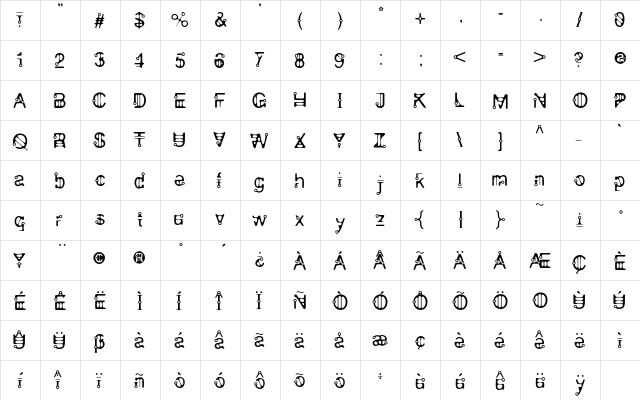
Generator Regular
Design Context for Generator Typeface
Generator is a composed and adaptable typeface that performs quietly and consistently across a wide range of design contexts.